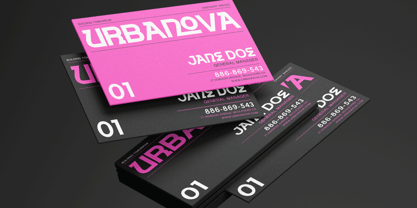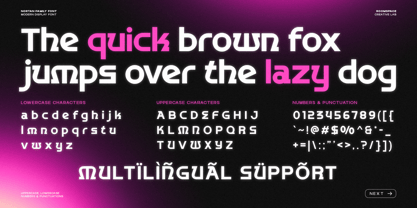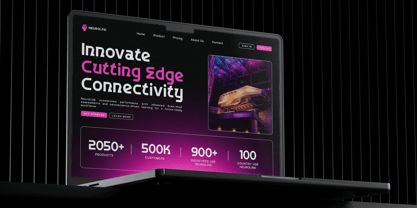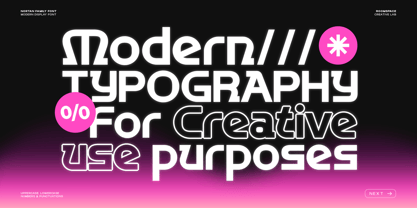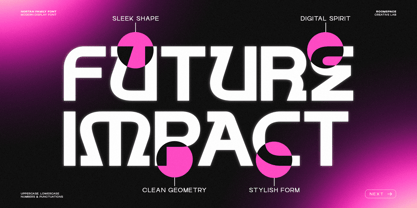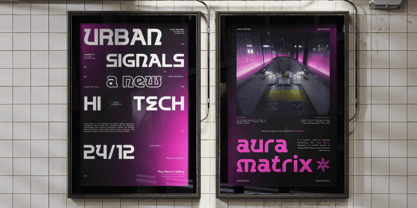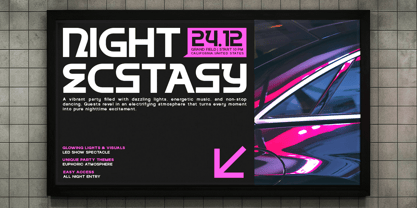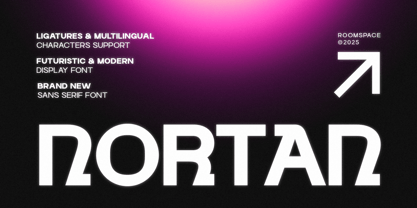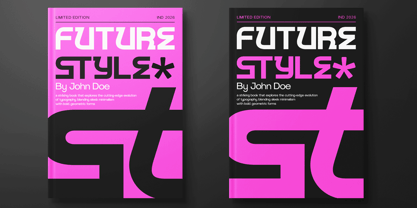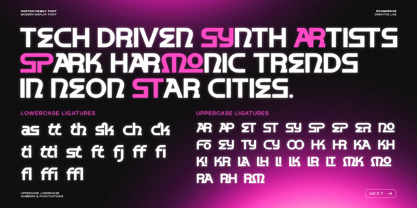
Nortan
by Jafar07
The Nortan Font Family was designed by Bakhrudin Ja'far and published by Jafar07. Nortan contains 2 styles and family package options. More about this family
Technical precision + typographic terminology Agencies, art directors, type specialists Tagline A sharp geometric sans crafted for contemporary digital design. Description Nortan is a futuristic modern display sans-serif defined by strong geometric shaping and distinctive digital-era curves. Engineered for high-impact headlines and technical branding, it performs exceptionally in screens, interfaces, posters, and cinematic layouts. Its ligature set and multilingual coverage make it a versatile tool for global branding systems and digital product design. Specifications Character set: Uppercase + multilingual Features: Ligatures, geometric construction Intended use: Branding, UI, editorial, signage, advertising
Designers: Bakhrudin Ja'far
Foundry: Jafar07
A little from my personal design & background: My name is Bakhrudin Ja'far, I live in Malang, Indonesia. I am currently completing my degree in visual communication design and I have worked as a lettering artist and logo designer for many years. I finally started my studio called roocspace creative lab (jafar07) Studio a few months ago and with my team made my letters into typography.